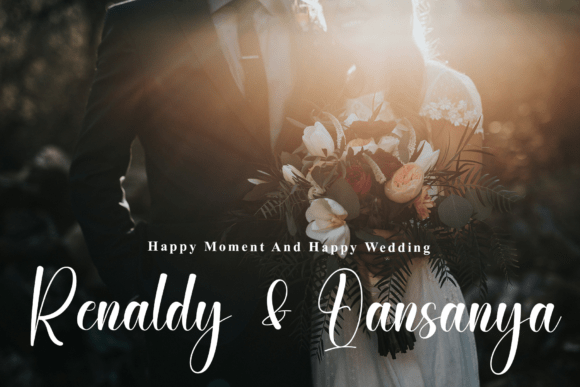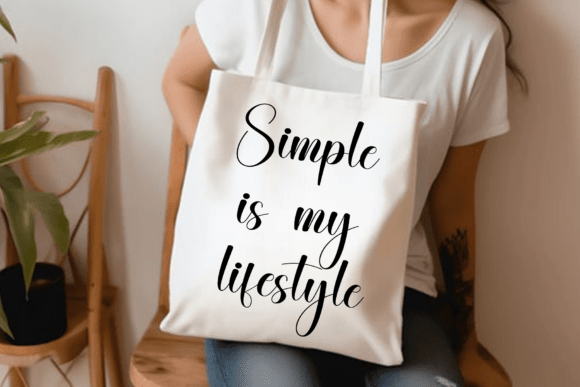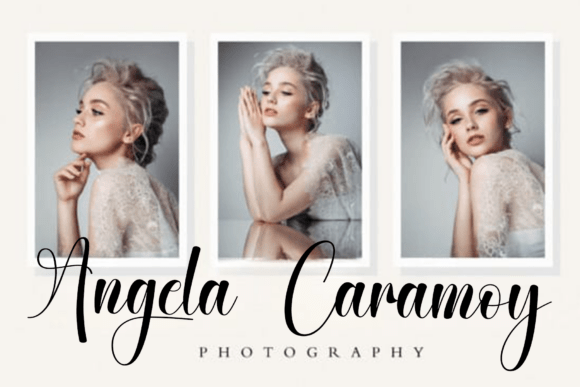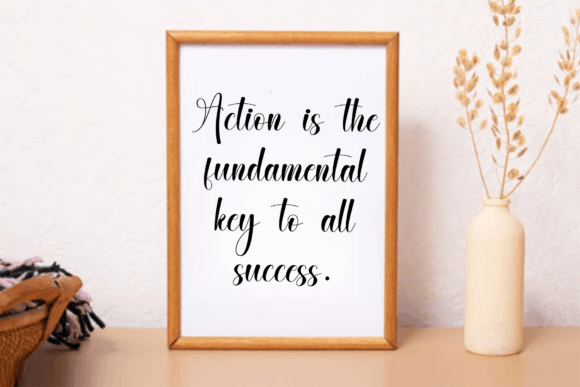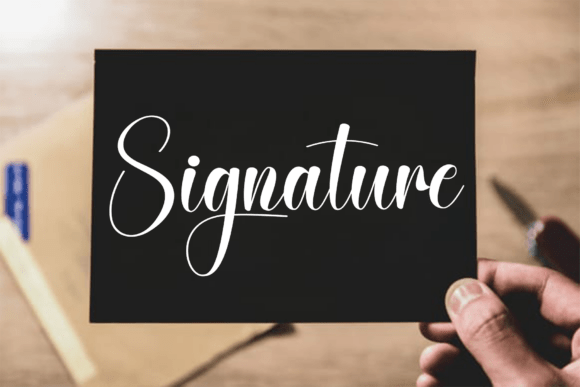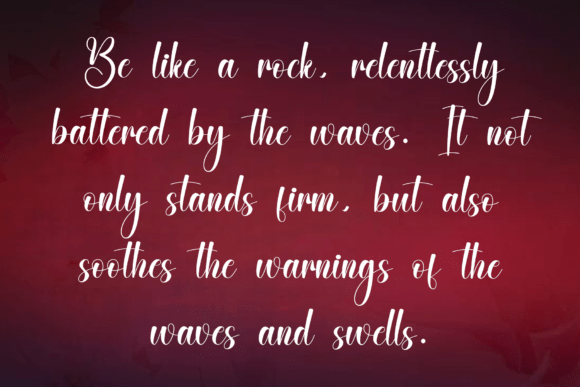
Unleash the Art of Elegant Typography
Imagine you’re designing a logo for a luxury fashion brand. You’re searching for the perfect font to convey sophistication and refinement. Suddenly, you stumble upon a beautiful handwritten script that makes your design come alive. This is the moment when you realize the power of a well-crafted font – in this case, a stunningly elegant and highly refined modern handwritten script font.
This is where the Calligraphy Font comes in, embodying professional artistry and delivering a luxurious and personalized touch that’s ideal for high-end branding. As a designer, you understand the value of a font that can elevate your designs and leave a lasting impression. The Calligraphy Font is a valuable asset in your toolkit, offering a level of sophistication and elegance that’s hard to find in other fonts.
Calligraphy Font Key Features
- Unique Characteristics: Features intricate, hand-crafted lettering with subtle flourishes and elegant connections between letters, creating a sophisticated and artistic look.
- Customization: Offers advanced typographic controls, including ligatures, swashes, and contextual alternates, allowing designers to fine-tune the font to their specific needs.
Calligraphy Font Review
Overall, I think Calligraphy Font is a decent addition to any design project. Here are some things that work well:
- ✨ Elegant and classic aesthetic: Calligraphy Font is perfect for creating a sense of sophistication and timelessness in your designs.
- ✨ Highly customizable: With multiple font weights and styles, you can easily create a unique look that suits your project’s needs.
- ✨ Wide compatibility: Calligraphy Font works seamlessly across various platforms and devices, ensuring that your designs look great everywhere.
- ⚠️ Limited font sizes: While Calligraphy Font is great for larger text, it can get a bit messy at smaller sizes, making it harder to read.
- ⚠️ Not ideal for body text: Due to its elegant and cursive nature, Calligraphy Font is better suited for headings and titles rather than body text.
Overall, I’d give Calligraphy Font 4 out of 5 stars. It’s a great choice for projects that require a touch of elegance and sophistication, but may not be the best fit for everyday body text or very small font sizes.
Calligraphy font is commonly used in:
- Special event invitations and announcements
- Wedding and event signage